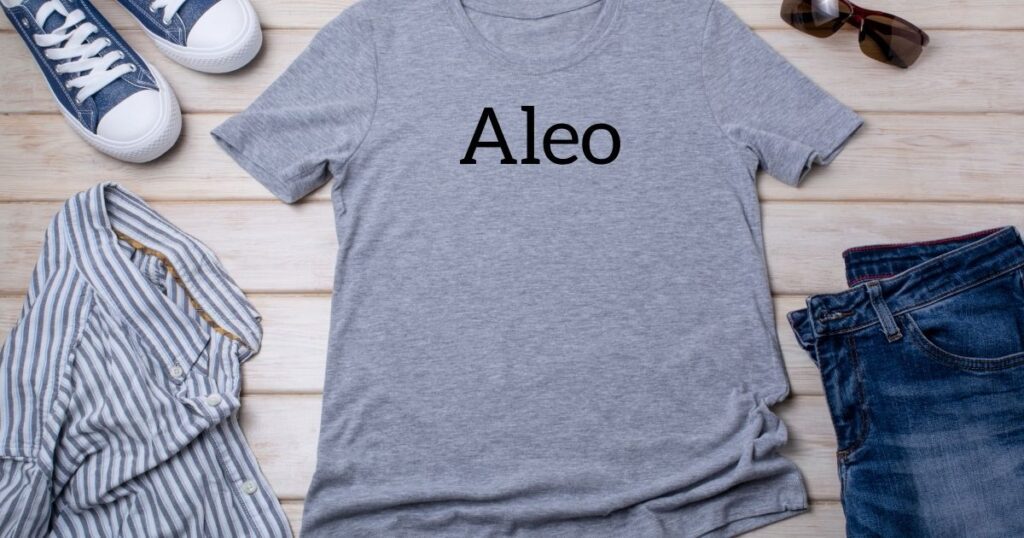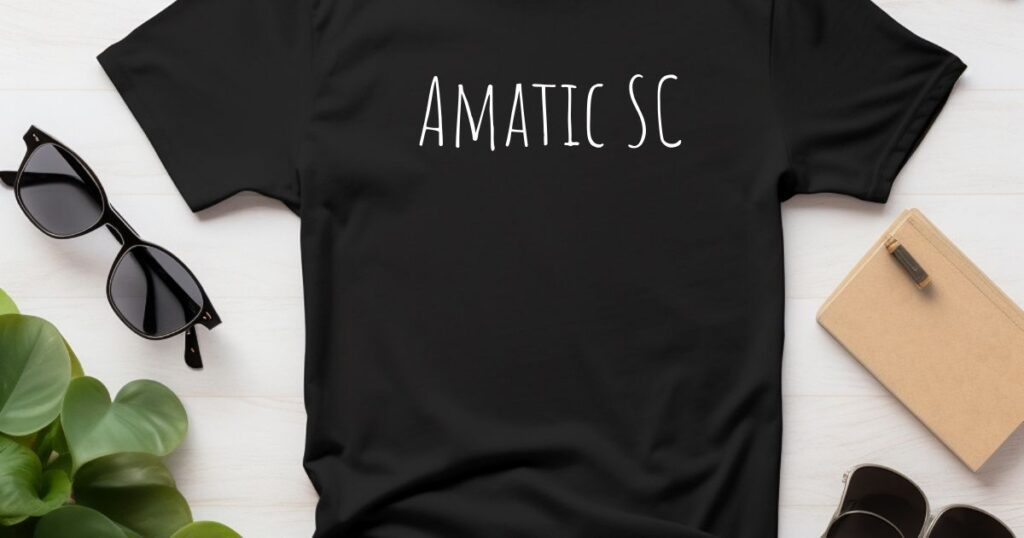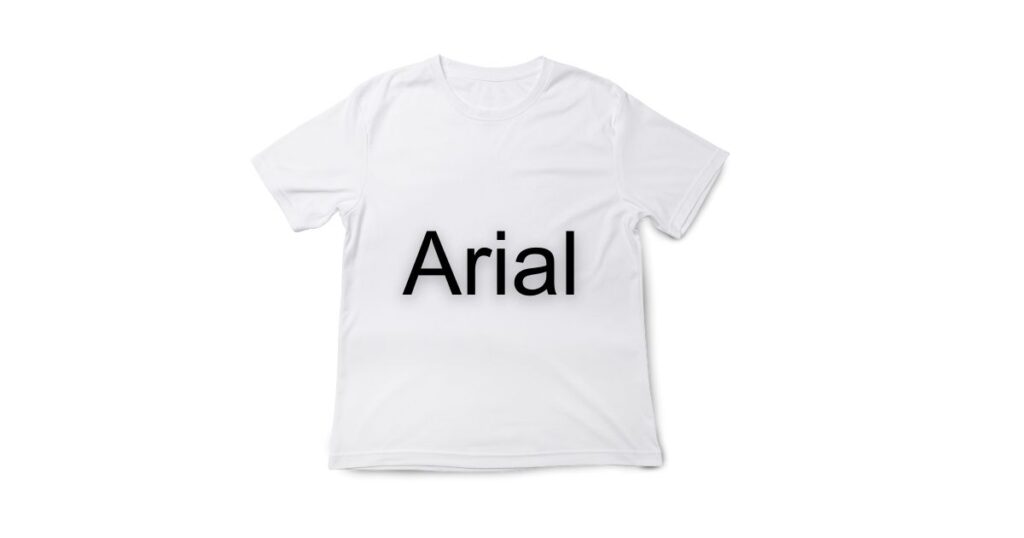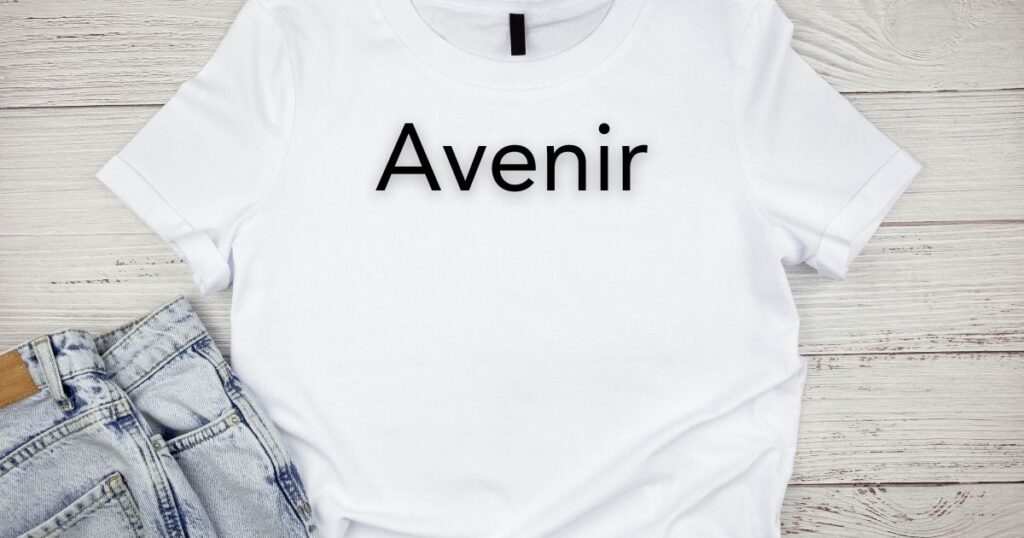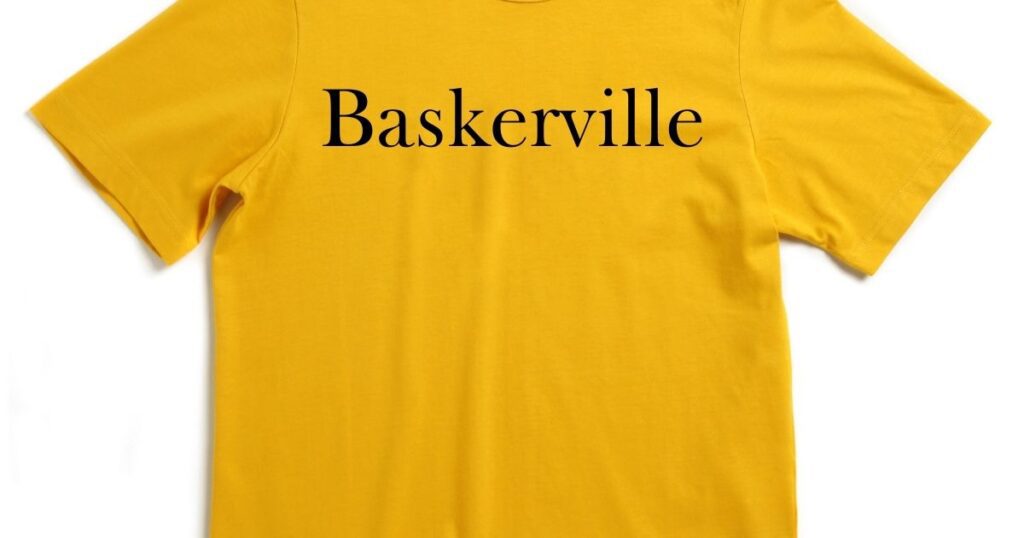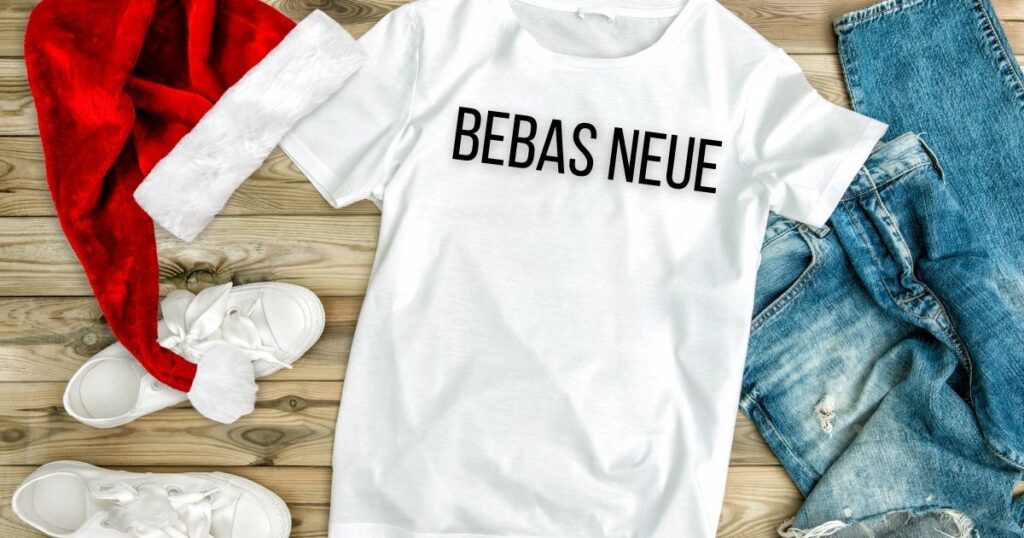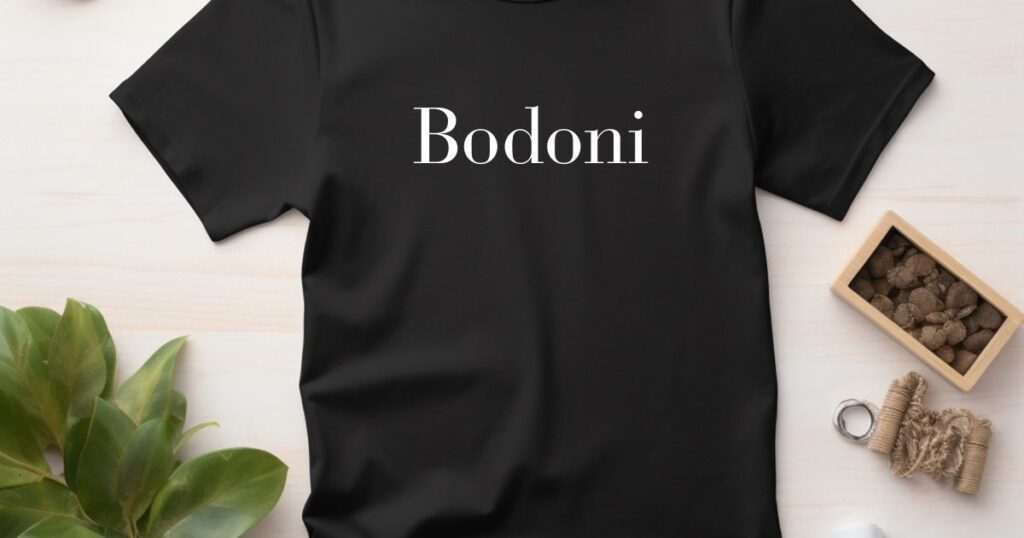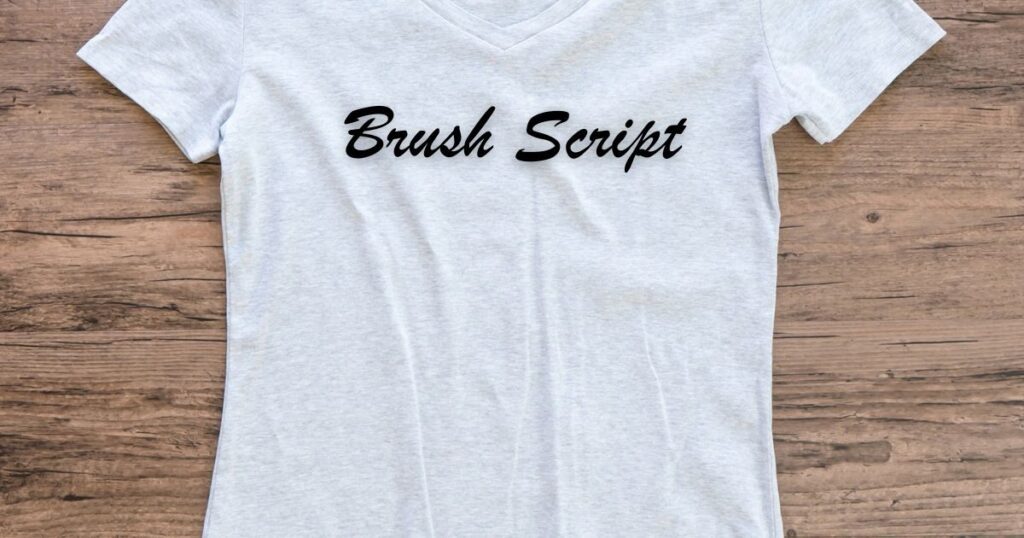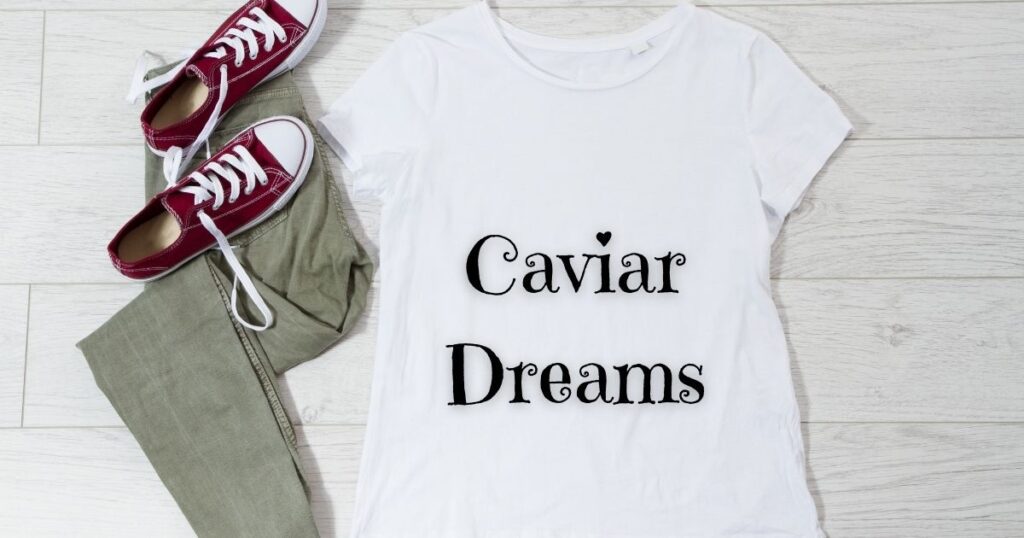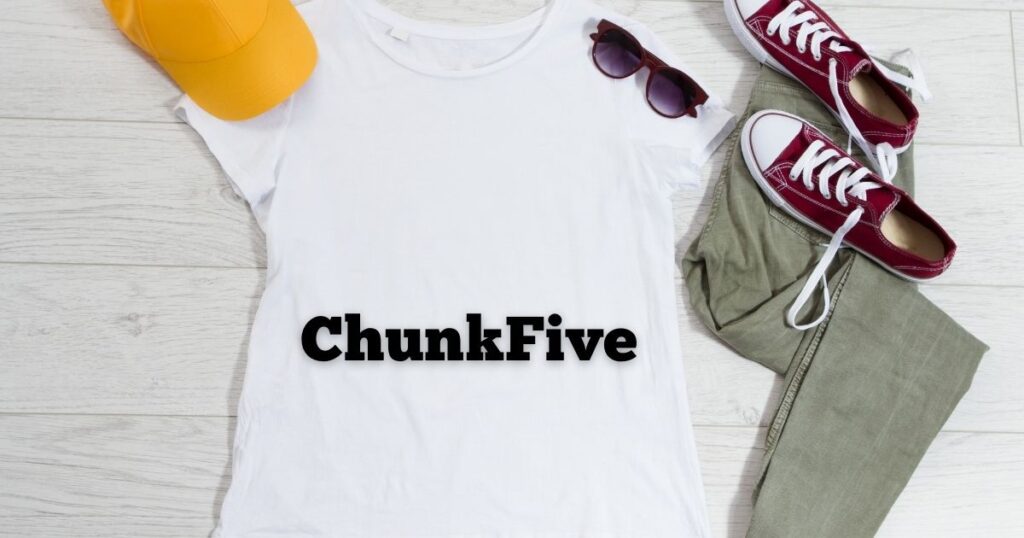
45 Best Font for Tshirt to Level Up Your Designs in 2024
Ready to turn your T-shirt game from ordinary to extraordinary? Whether you’re championing a cause, expressing your unique style, or creating swag that speaks volumes, custom text designs are the ultimate canvas. But here’s the kicker – finding the right words is just half the battle. The font you choose? That’s the secret sauce to nailing the perfect mood and message.
Enter our blog post, “45 Best Font for Tshirts to Level Up Your Designs.” lets exploring why your T-shirt font matters. Unveil the top 45 fonts for killer designs, and drop some wisdom on choosing the ultimate font to match your style.
Why It’s Important to Select the Right T-shirt Fonts for Your T-shirt Design?
Your choice of fonts isn’t merely a visual decision; it’s a design strategy that holds the power to define the entire mood of your T-shirt.
For instance, opting for playful and fun fonts can infuse a lighthearted vibe into your design, while classic and professional fonts evoke a sense of sophistication. Consider the impact you want and choose fonts that align with your design objectives.
Influence on Brand Identity
Fonts are the silent ambassadors of your brand. Consistent use of specific fonts across various T-shirt designs is a branding technique that goes beyond logos.
For instance, renowned brands like Coca-Cola and Disney have distinctive fonts that instantly evoke their brand identity. This consistency builds recognition, reinforcing your brand’s personality in the minds of your audience.
Enhancing Message Delivery
Fonts are not just letters; they are communicators. Your choice of font should amplify the message you intend to convey through your T-shirt designs.
Imagine a motivational quote presented in a bold, impactful font versus a delicate script. Each conveys a different tone.
Align your font choice with your message, ensuring it resonates with your audience and enhances the overall impact.
Pro Tips:
• Experiment with font pairings to create a dynamic visual hierarchy in your design.
• Consider the psychology of fonts – certain styles evoke specific emotions, and understanding this can help convey the right mood.
• Use font variations (bold, italic, etc.) strategically to emphasize key elements of your message.
Statistical Insight: According to a survey by Nielsen Norman Group, users often skim through web content. Using readable fonts and concise messaging can improve engagement.
45 Best Fonts for T-shirt Design
Let’s get to the best fonts to design your T-shirts with:
1. Helvetica
Style: Clean and modern sans-serif.
Best Use: Ideal for a sleek and professional look.
Example: Perfect for corporate branding or minimalist designs.
2. Arial
Style: Widely available sans-serif.
Best Use: Clean, readable, and versatile, suitable for various design applications.
Example: Well-suited for straightforward text-based designs.
3. Times New Roman
Style: Classic serif font.
Best Use: Emanates tradition and professionalism, creating a timeless aesthetic.
Example: Excellent for formal events or vintage-themed designs.
4. Impact
Style: Bold and attention-grabbing sans-serif.
Best Use: Perfect for making a bold statement in your T-shirt designs.
Example: Great for impactful slogans or one-word designs.
5. Futura
Style: Geometric sans-serif with a modern and futuristic feel.
Best Use: Ideal for contemporary and cutting-edge designs.
Example: Well-suited for technology-related themes.
6. Gotham
Style: Clean lines and versatile sans-serif.
Best Use: Suitable for various design contexts, providing a modern aesthetic.
Example: Versatile for a range of designs, from casual to professional.
7. Bebas Neue
Style: Stylish and bold sans-serif.
Best Use: Injects modernity and impact into your designs.
Example: Great for designs that need a strong visual presence.
8. Roboto
Style: Friendly and approachable sans-serif.
Best Use: Versatile for different design scenarios, adding a touch of friendliness.
What is the most attractive font style?
Font attractiveness is subjective. Script or hand-lettered fonts can bring a playful, artistic touch, while bold and modern styles may appeal to a contemporary, eye-catching look.
What font is used for graphic tees?
Graphic tees often employ bold blocky fonts for urban styles, vintage-inspired fonts for a retro vibe, or script fonts for a personalized touch. The choice depends on the theme and message of your design.